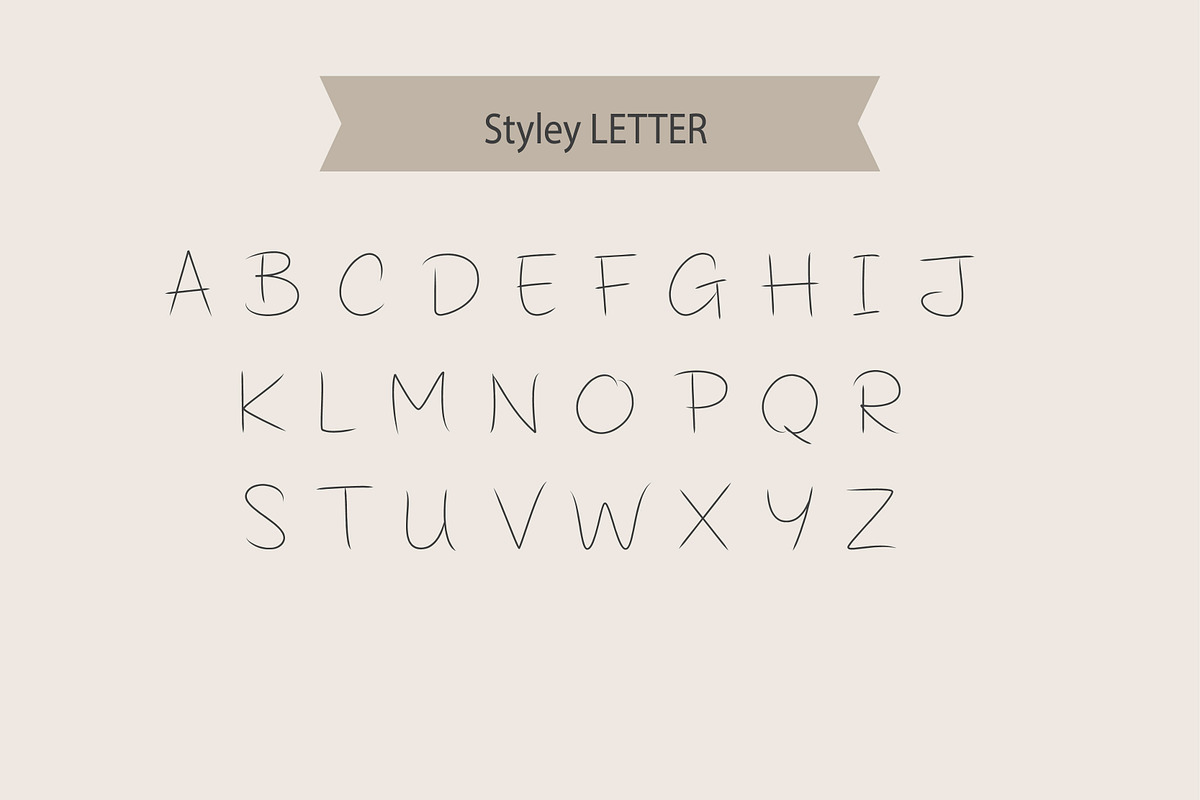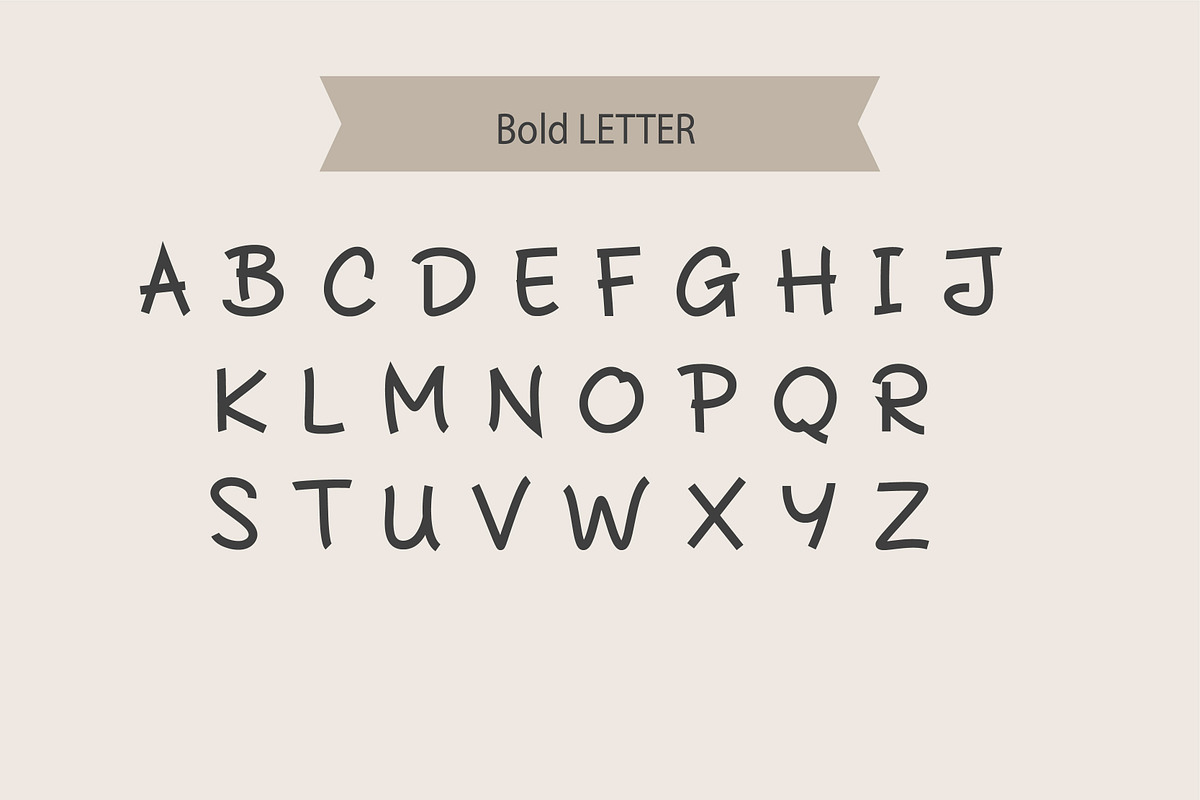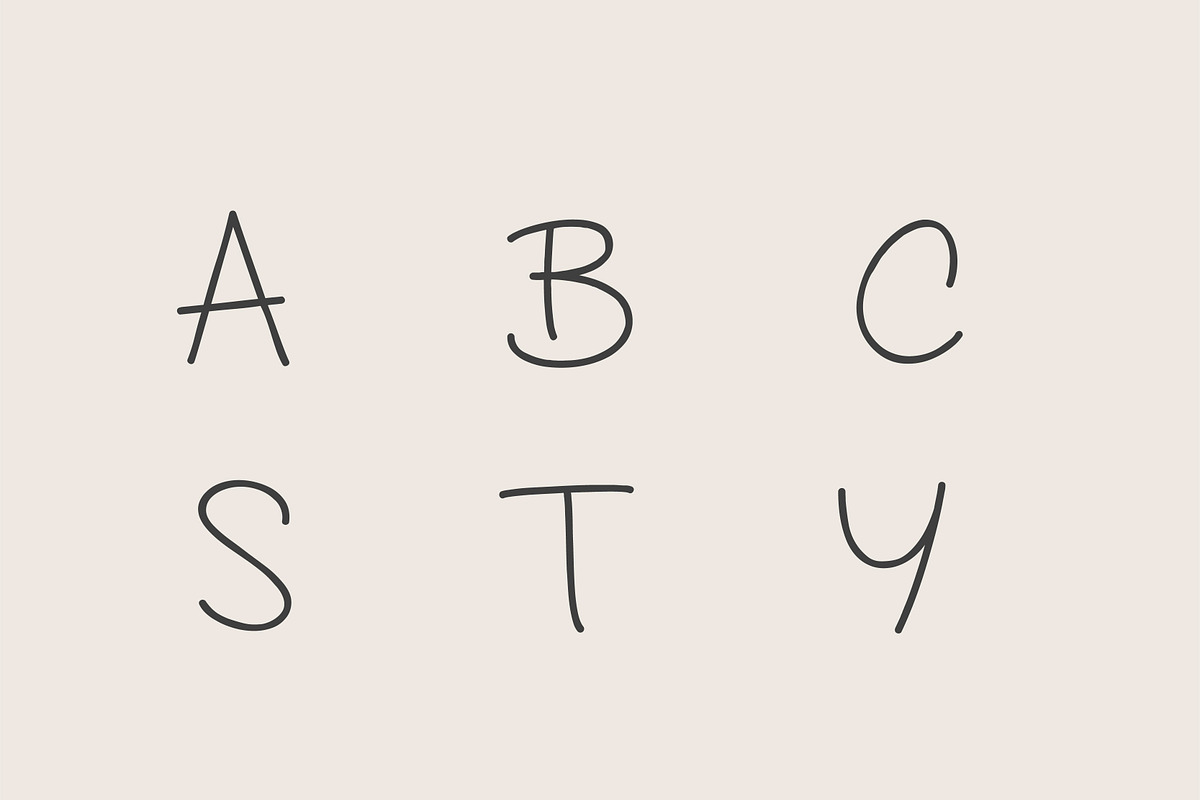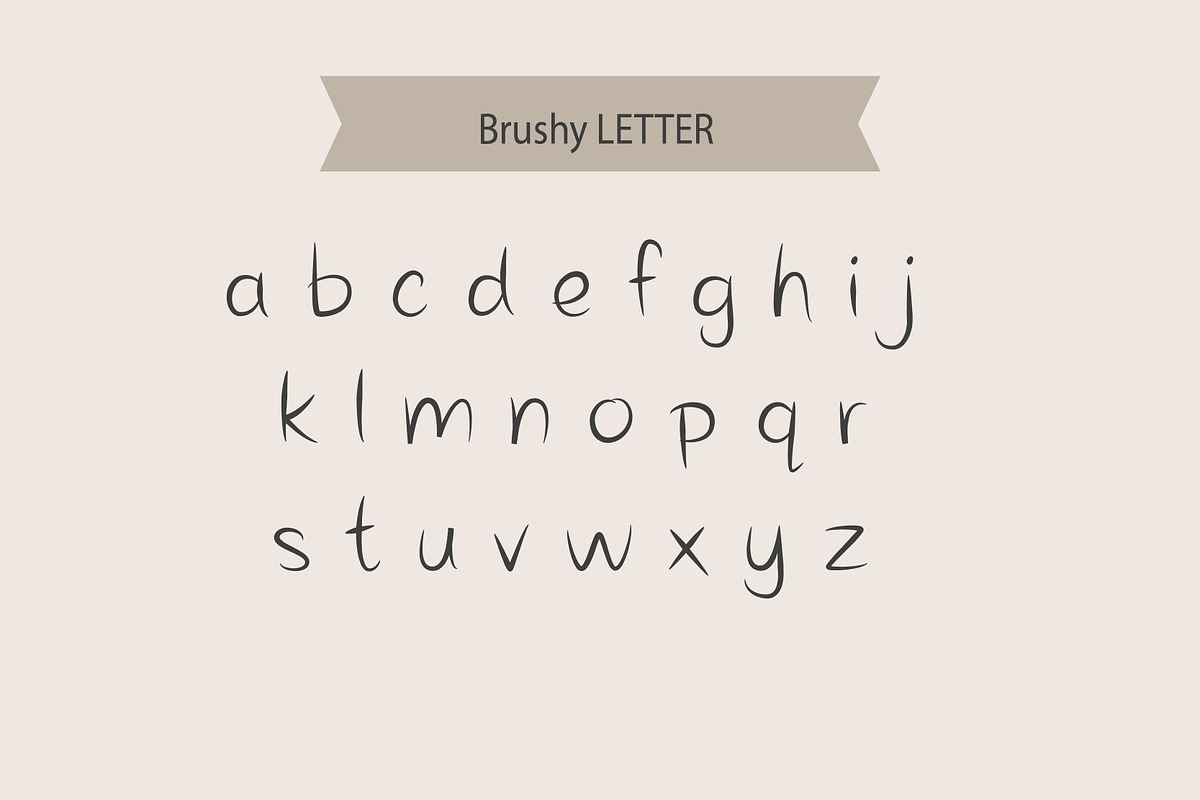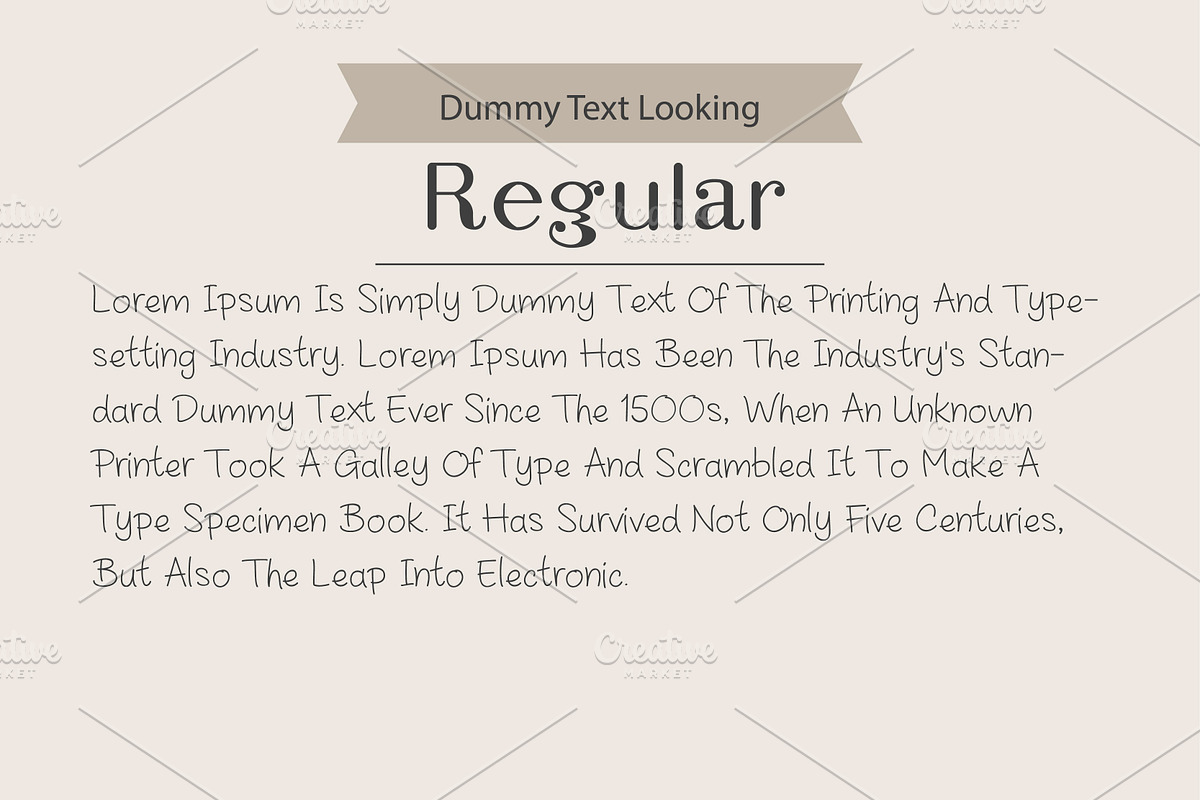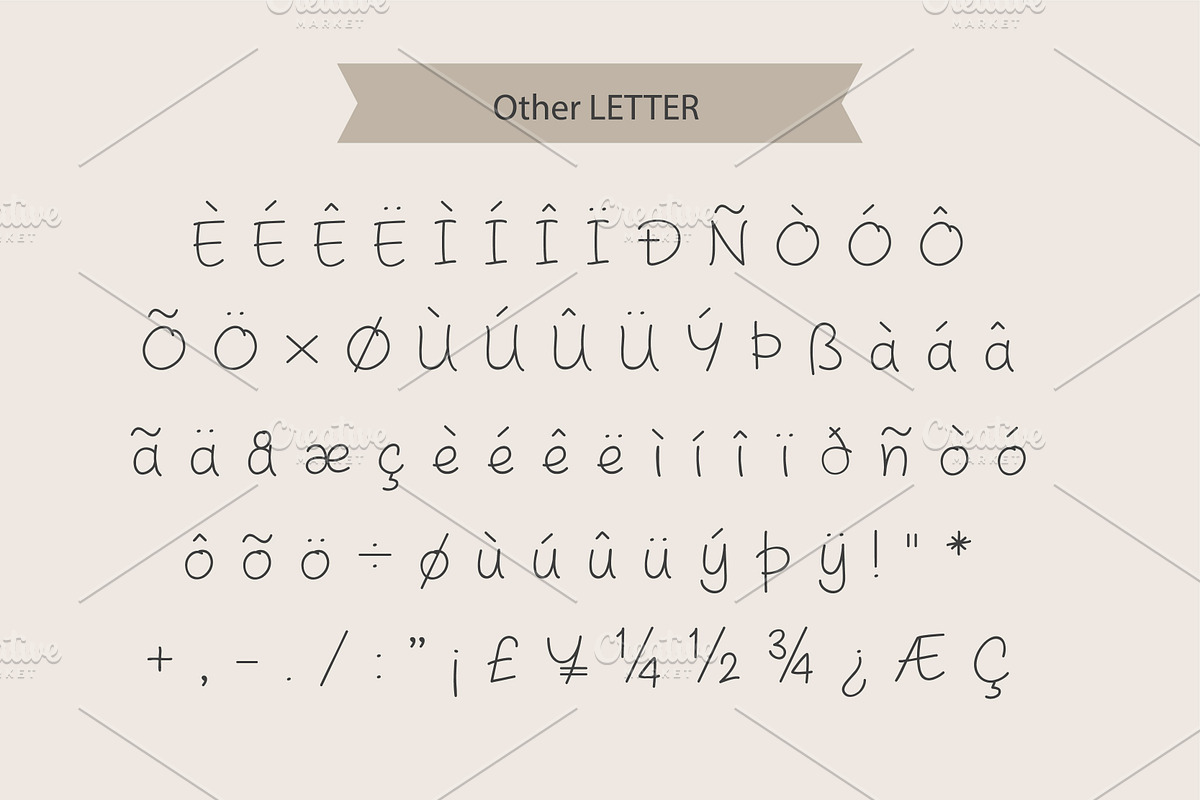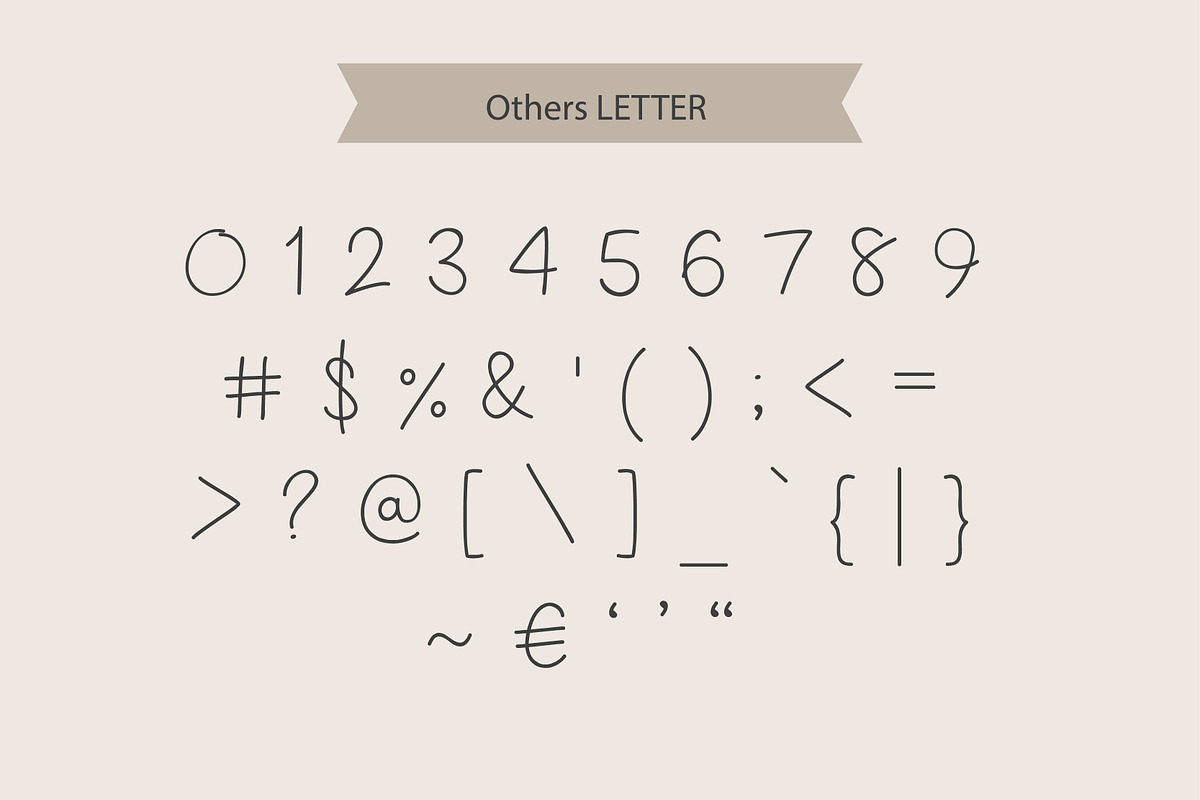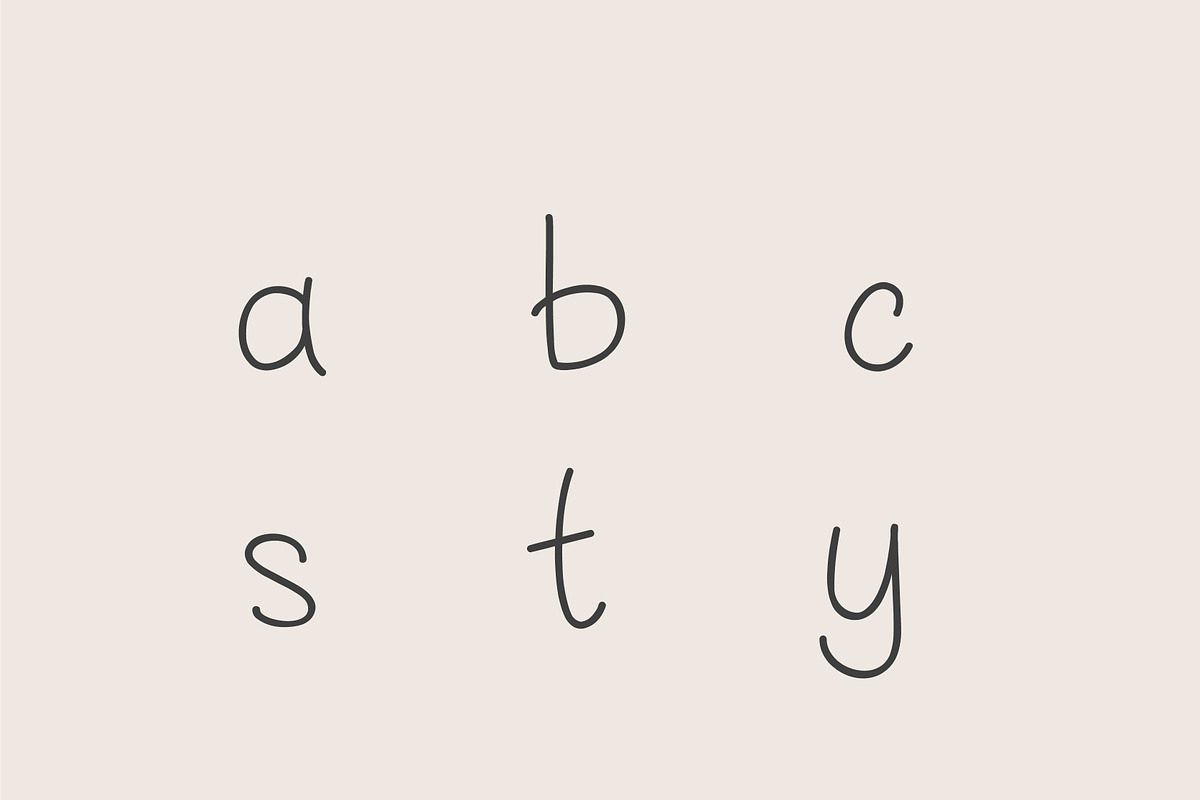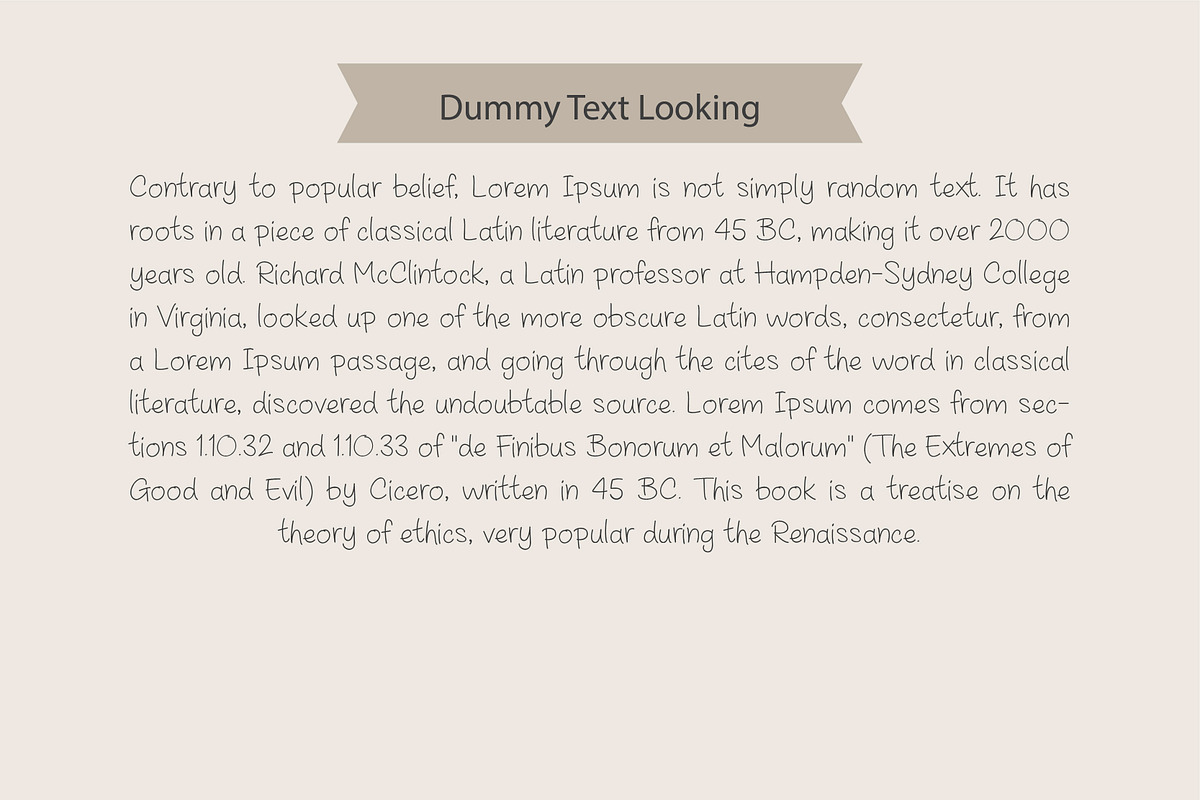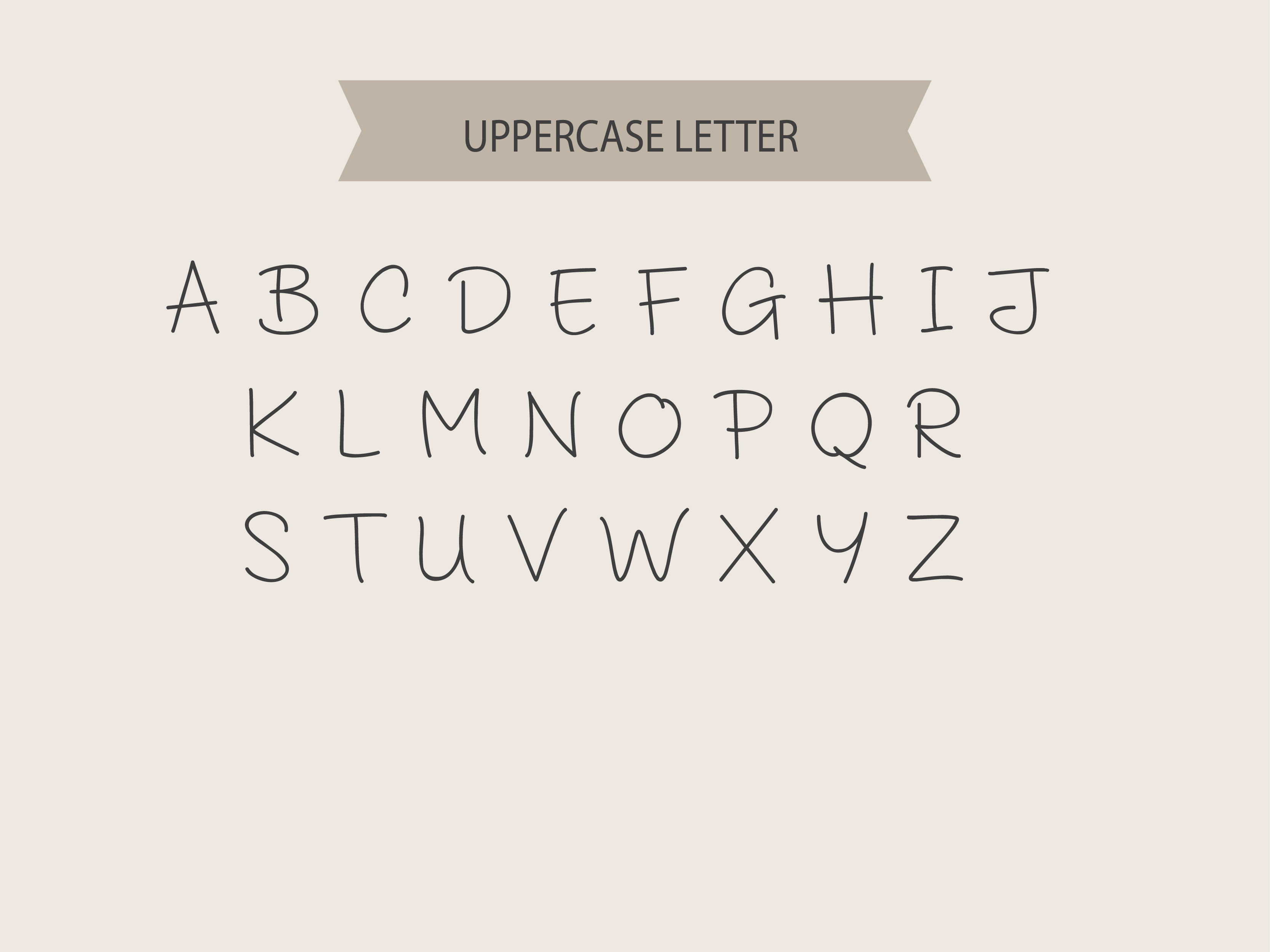
Pingku Font
Pingku Font Information
- Pingku Font is a stylish hand made Font, Available in Regular, Bold, Style, Brushy, 4 in one version with all special characters.
4 Font Style
Pingku Regular Font - Pingku Bold Font - Pingku Brushy Font - Pingku Style Font
Make your design with Pingku Font
Suitable for…
Magazine design
Cover design
Flyer design
Display font
Web site Slider Font
Hade line font
Regular font
Product name
Etc.